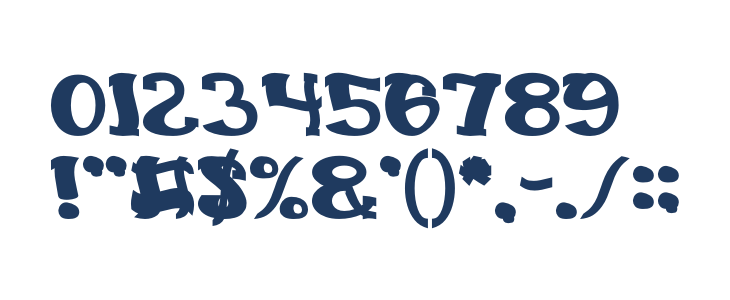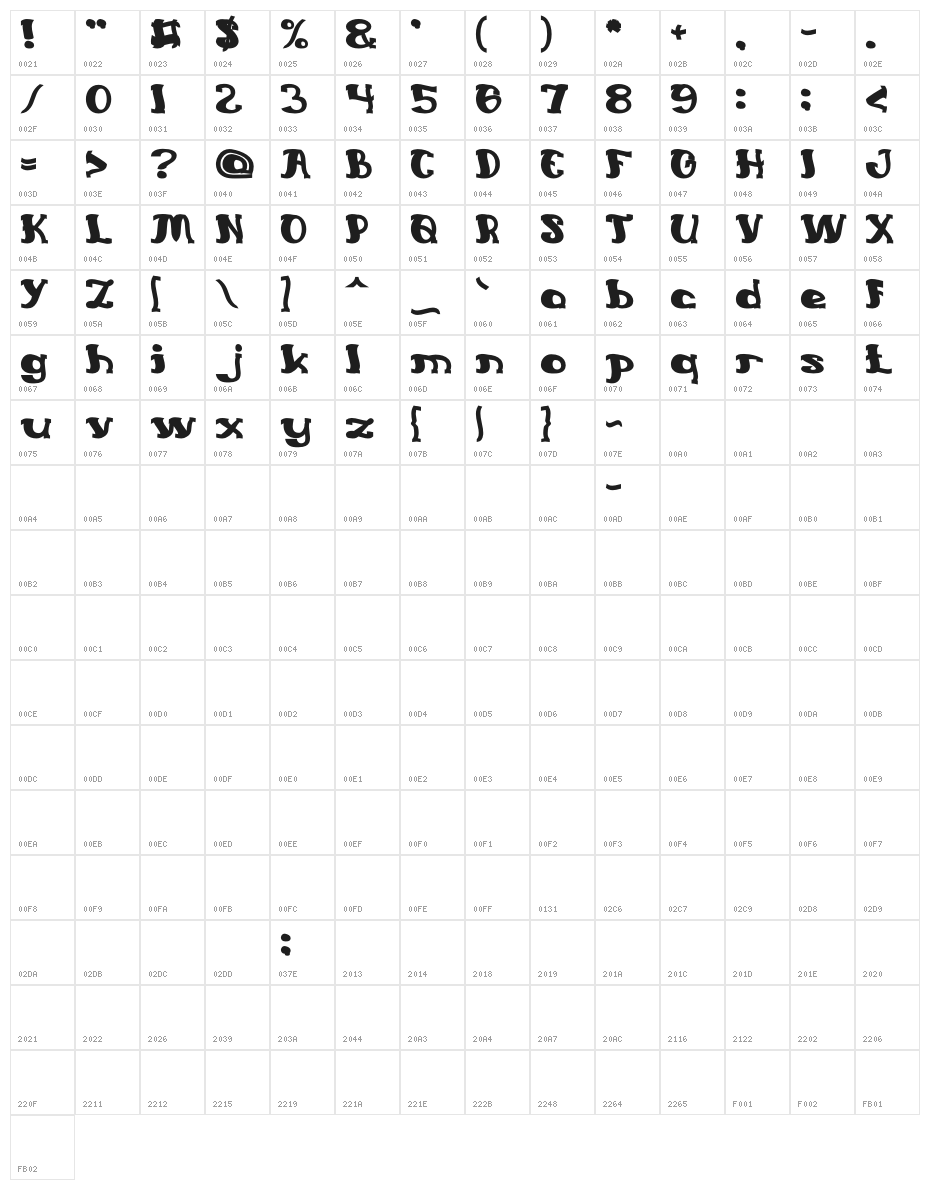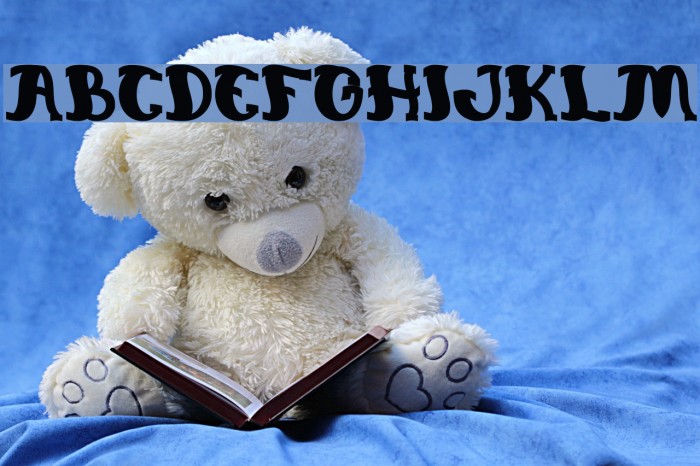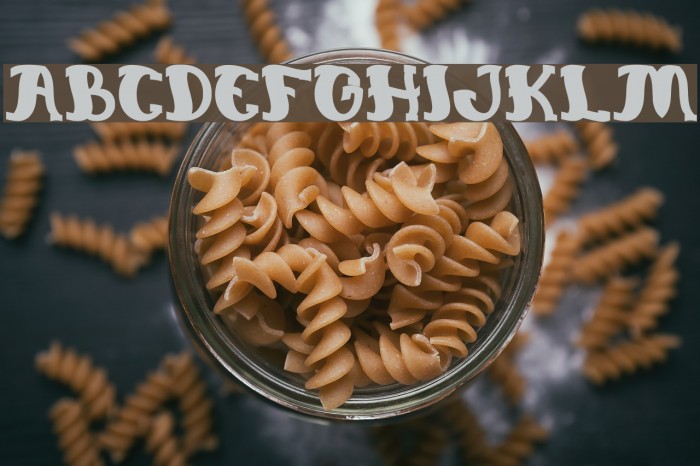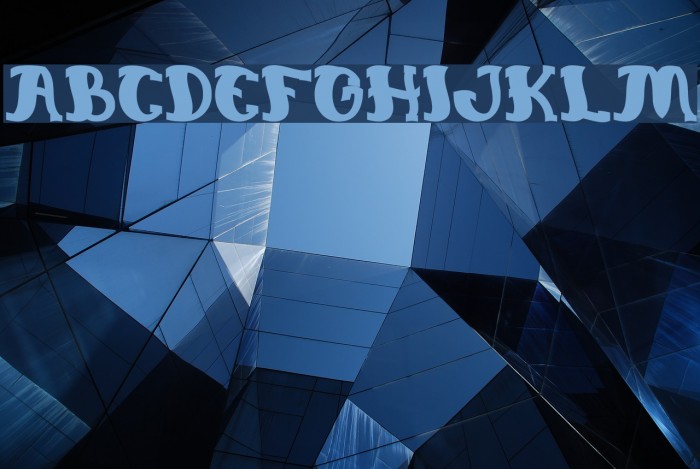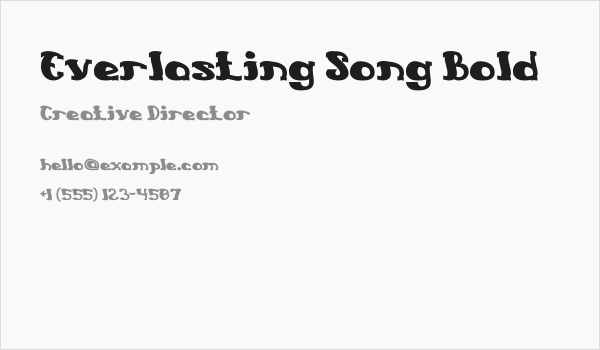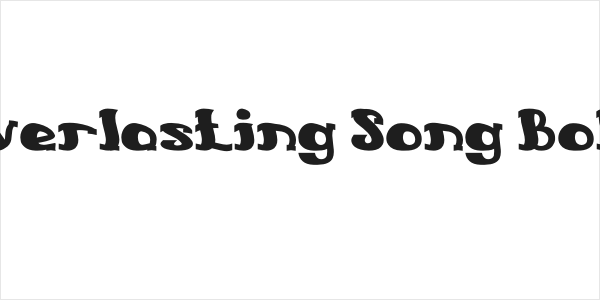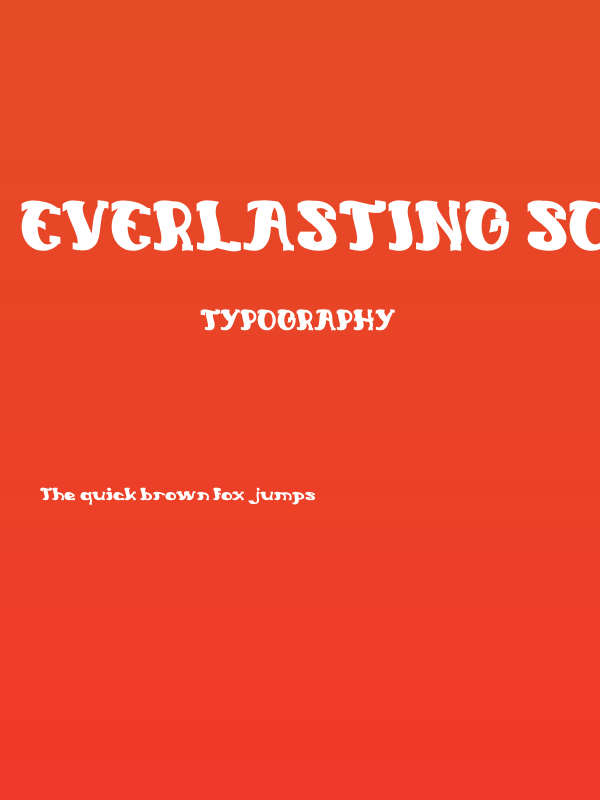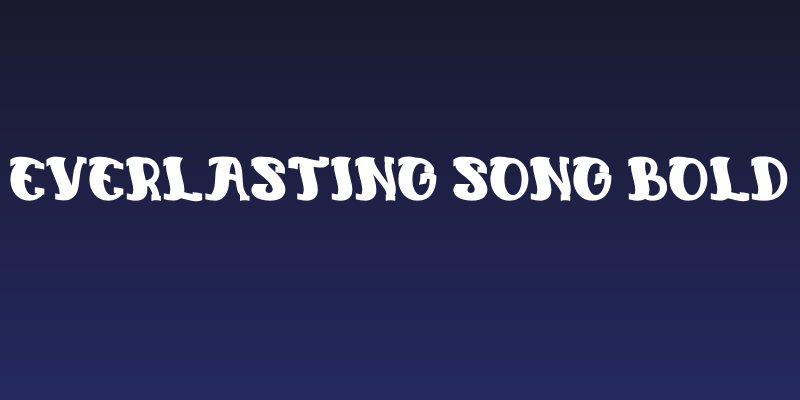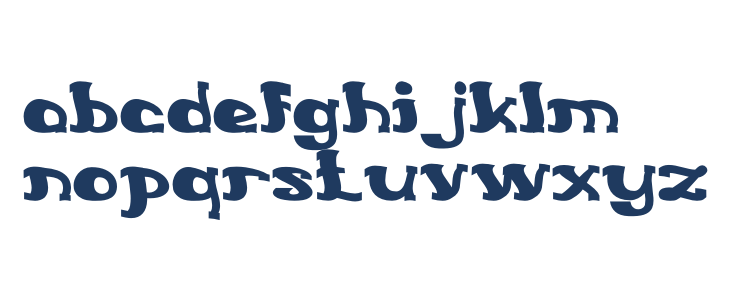
Everlasting Song Bold Font
Everlasting Song Bold Description
This font features a bold and playful design with a whimsical touch. The characters are rounded and have a slightly uneven baseline, giving them a hand-drawn appearance. The strokes are thick and consistent, providing a strong visual impact. The uppercase and lowercase letters maintain a cohesive style, while the numbers and special characters are equally bold and expressive. This font's unique style makes it stand out, with a lively and energetic feel that can add personality to any project.
| Proposed Projects | Ideal for children's books, playful branding, posters, and creative invitations. |